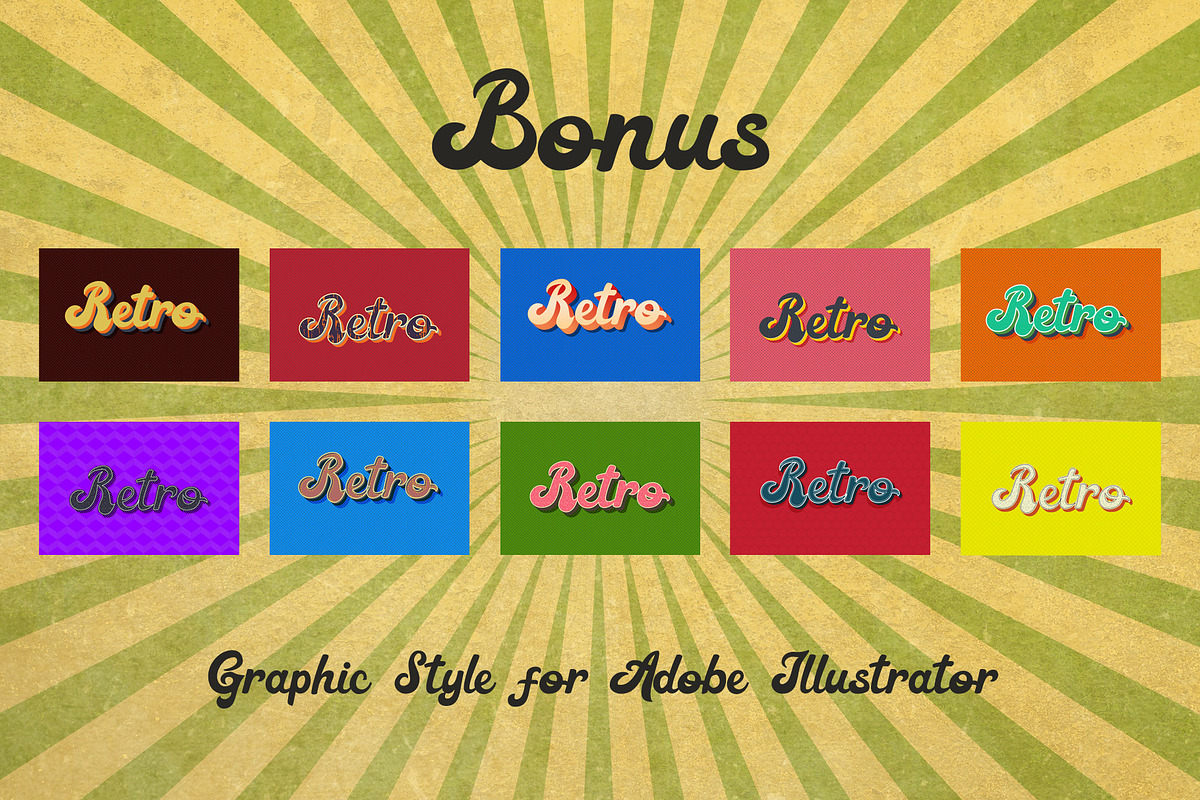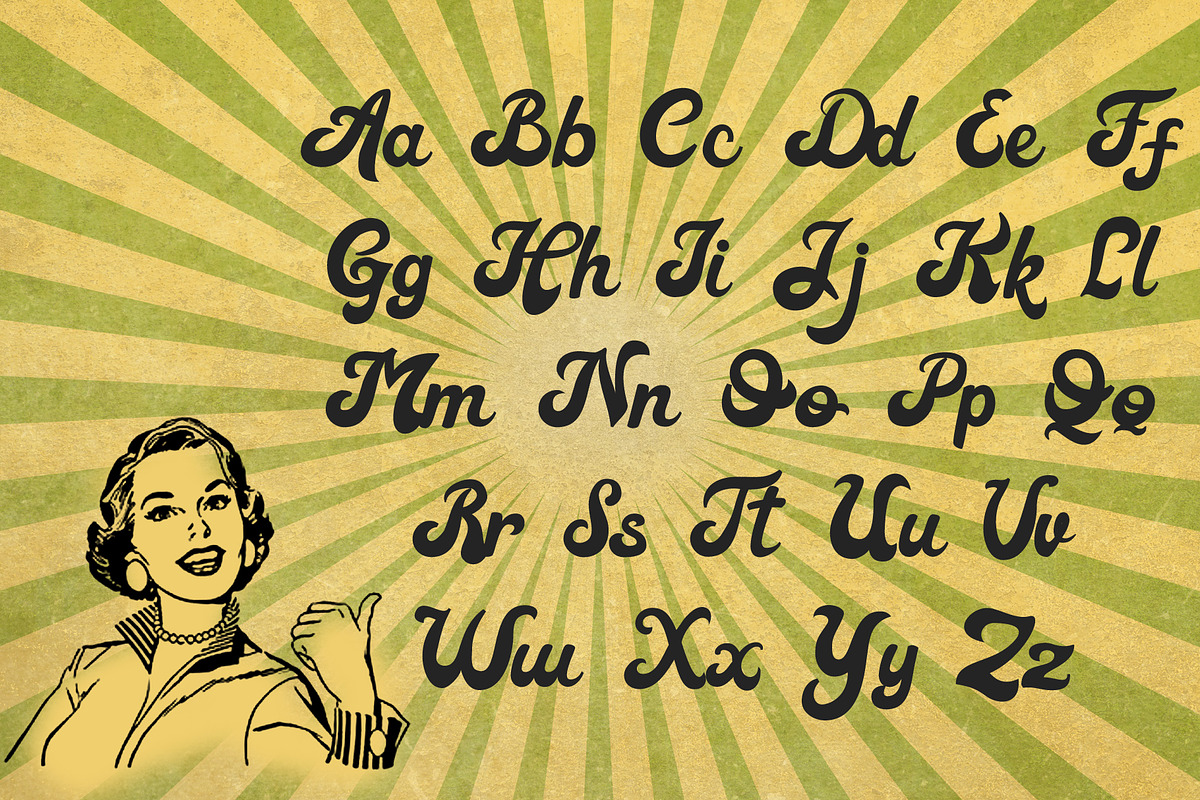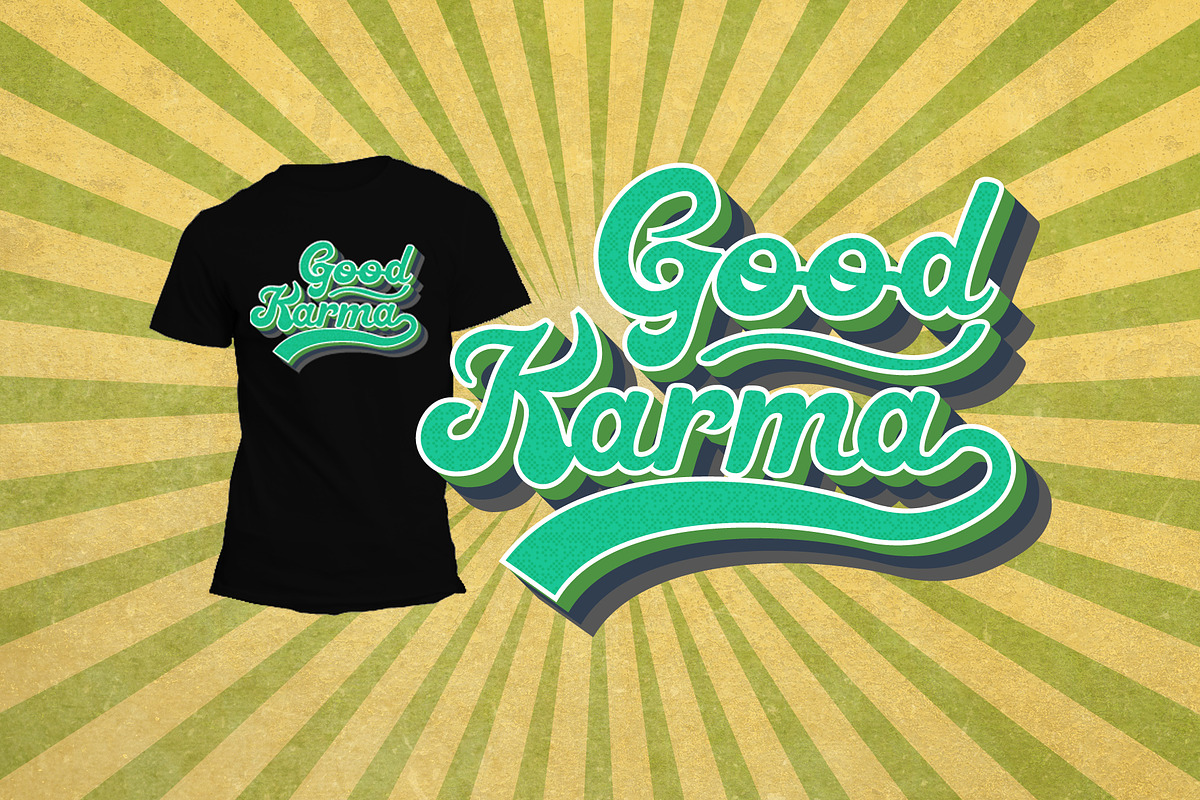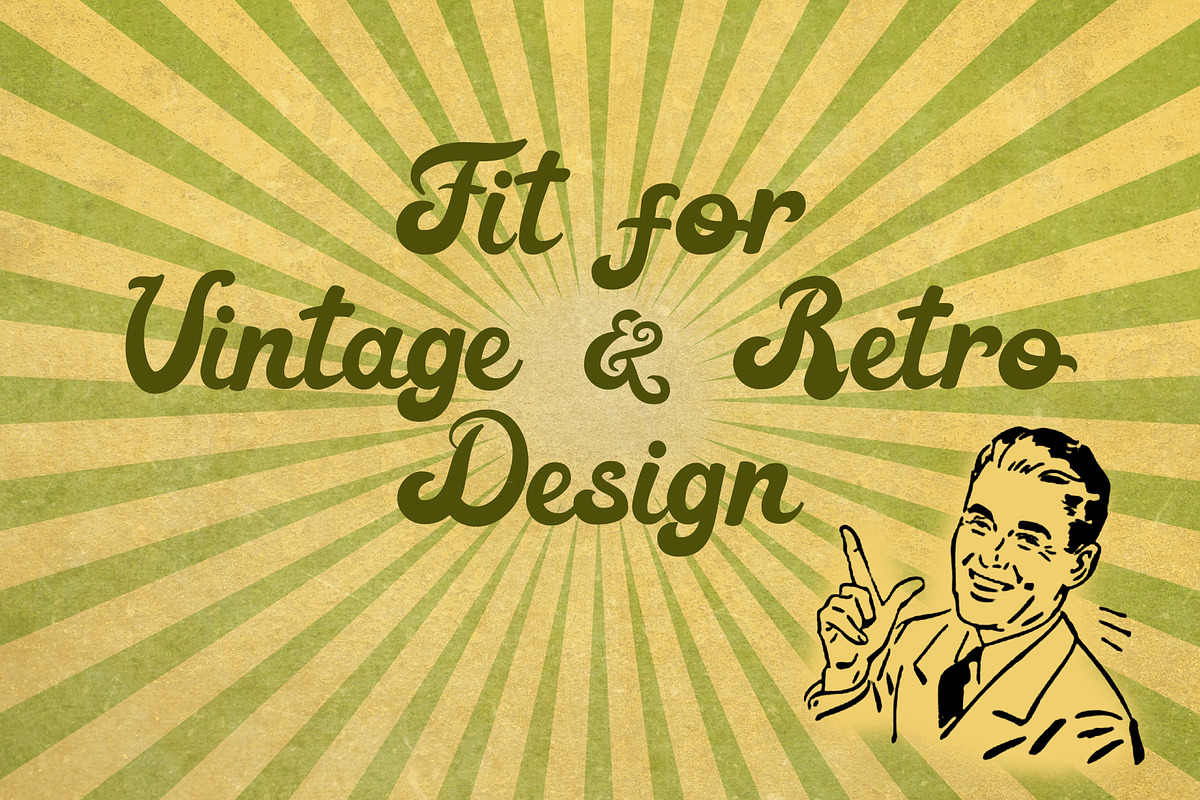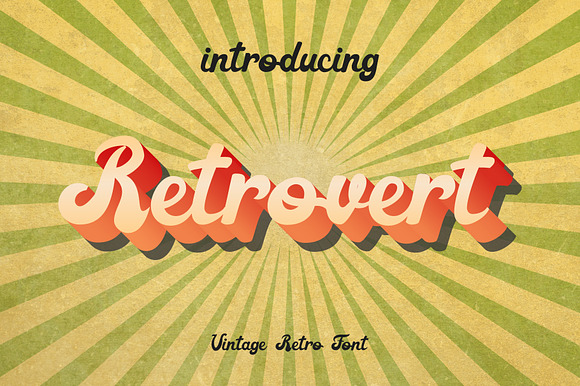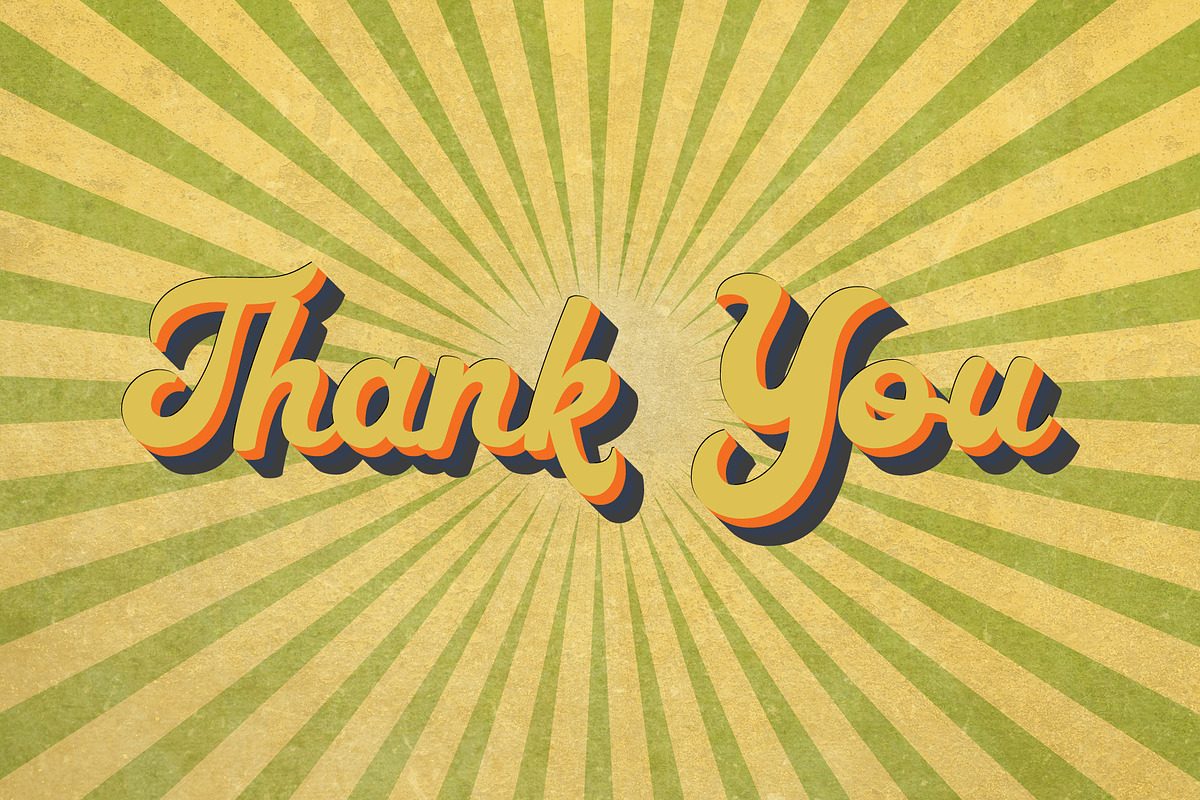
Retrovert Vintage Font Groovy Script
Retrovert is Retro Vintage Script Font - a new groovy and unique Retro Vintage Script style make this font looks Oldschool, Retro, Vintage and Unique
Retrovert with a distinct appearance of Retro, 70's era. the golden era. It works well in posters, CD Cover, T-shirt / merchandise design, magazine,the possibilities are endless!
Why Retrovert Vintage Font Groovy Script is worth a look
Retrovert Vintage Font Groovy Script by Anomali Creatype fits naturally into Branding, posters, packaging, typography.